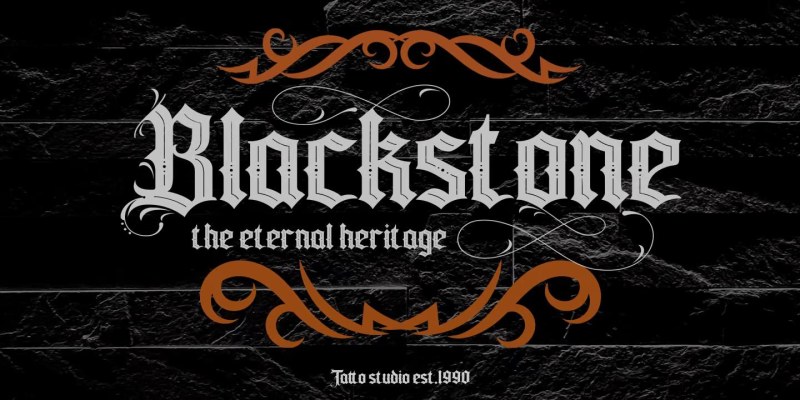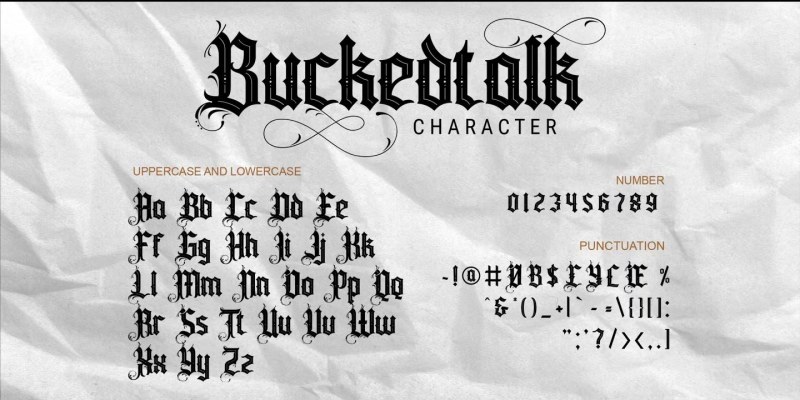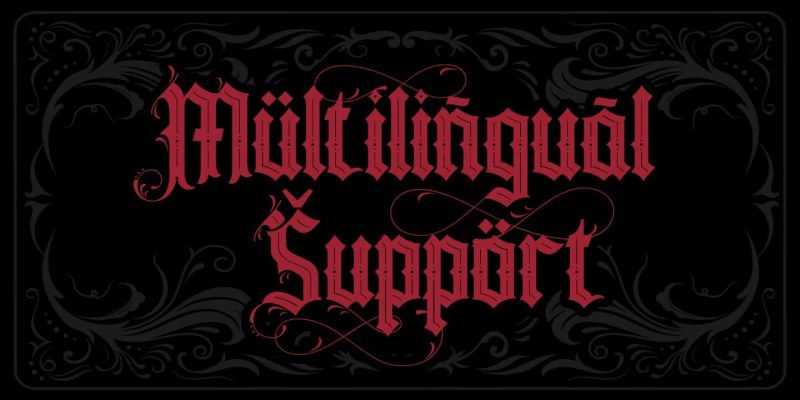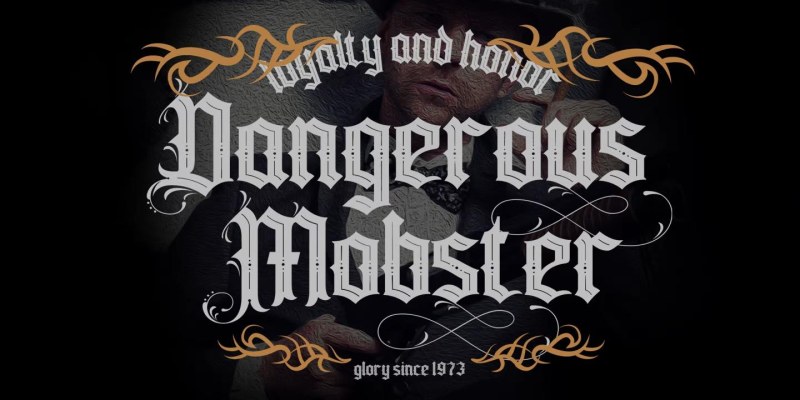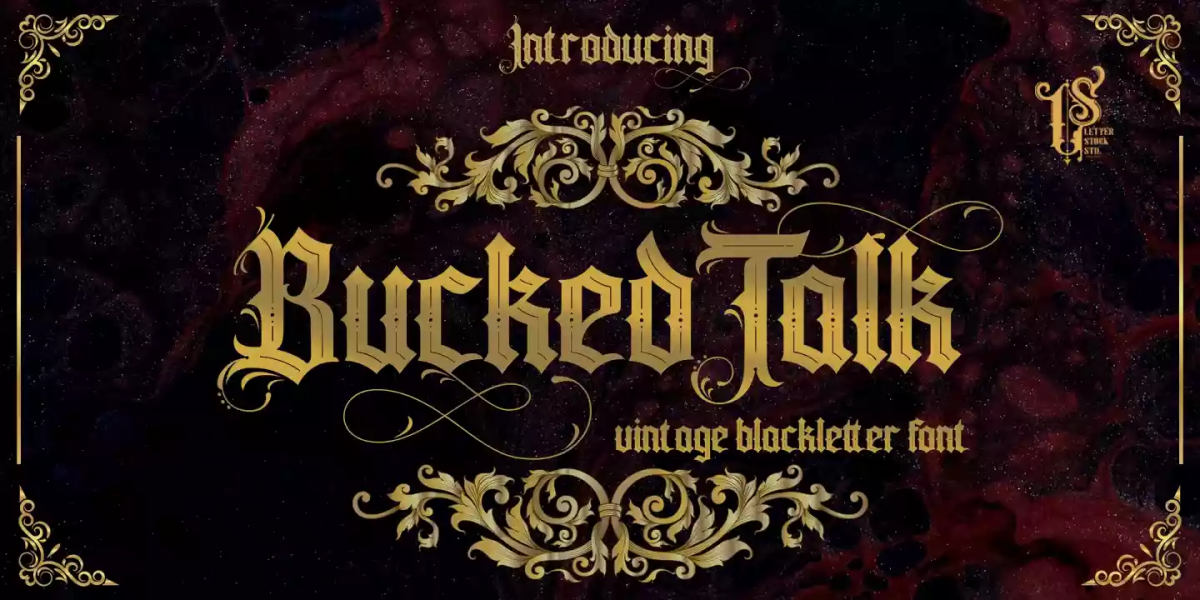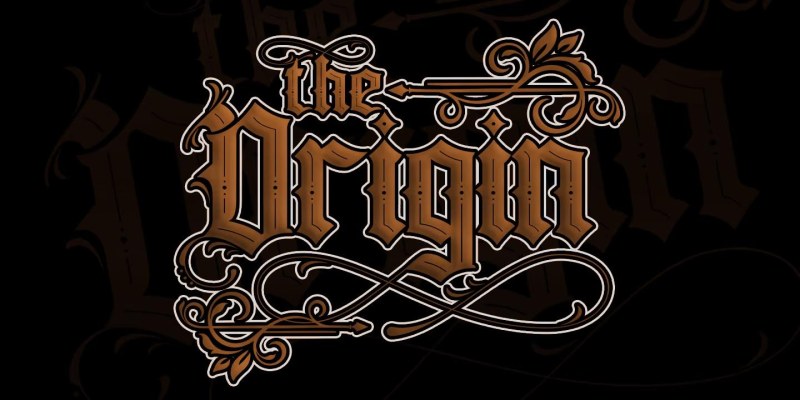
Buckedtalk Font
Bucked Talk font has 209 character set included stylistic alternate and ligature. Bucked Talk Font is very good looking in logo with vintage style, labels, t-shirt print…
Bucked Talk font has 209 character set included stylistic alternate and ligature. Bucked Talk Font is very good looking in logo with vintage style, labels, t-shirt prints, product packaging, invitations, advertising and others. If you looking for Vintage Blackletter Font, Bucked Talk is a great choice for you to use it on your vintage design or even logotype. This font is full hand drawing decorative.
Where Buckedtalk Font works best
Music & streetwear
Buckedtalk Font is a staple for metal and hip-hop artwork, tattoo lettering and streetwear graphics.
Beer, spirits & heritage labels
Blackletter signals tradition on brewery, whisky and old-town branding.
Certificates & diplomas
Classic gothic letterforms suit formal documents and mastheads.
What is Buckedtalk Font good for?
Buckedtalk Font is a Blackletter Font typeface tagged Blackletter, Blackletter Font, Branding, Decorative. It works well for headlines, logos, posters, social media graphics and branding projects that need a distinctive blackletter font look.